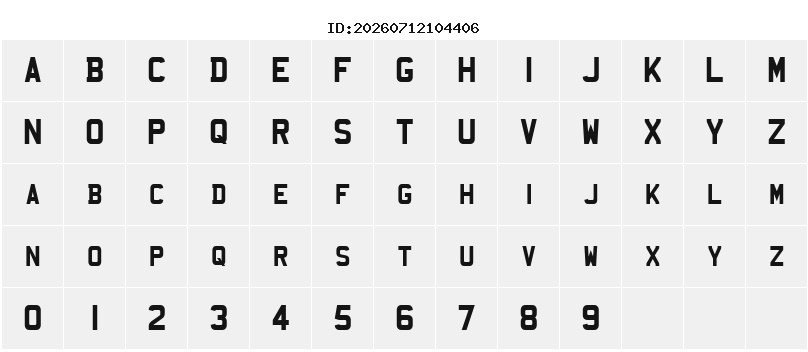
• Font Name: Mandatory
• Copyright: Mandatory by Keith Bates is a full typeface based on the font used for UK vehicle registration plates, but with improved M and W stem separation. K‐Type Freebie © 2004.
Mandatory.ttf is a modern, elegant sans-serif font designed for ultimate readability and visual harmony. Perfect for branding, headlines, web design, and print materials.